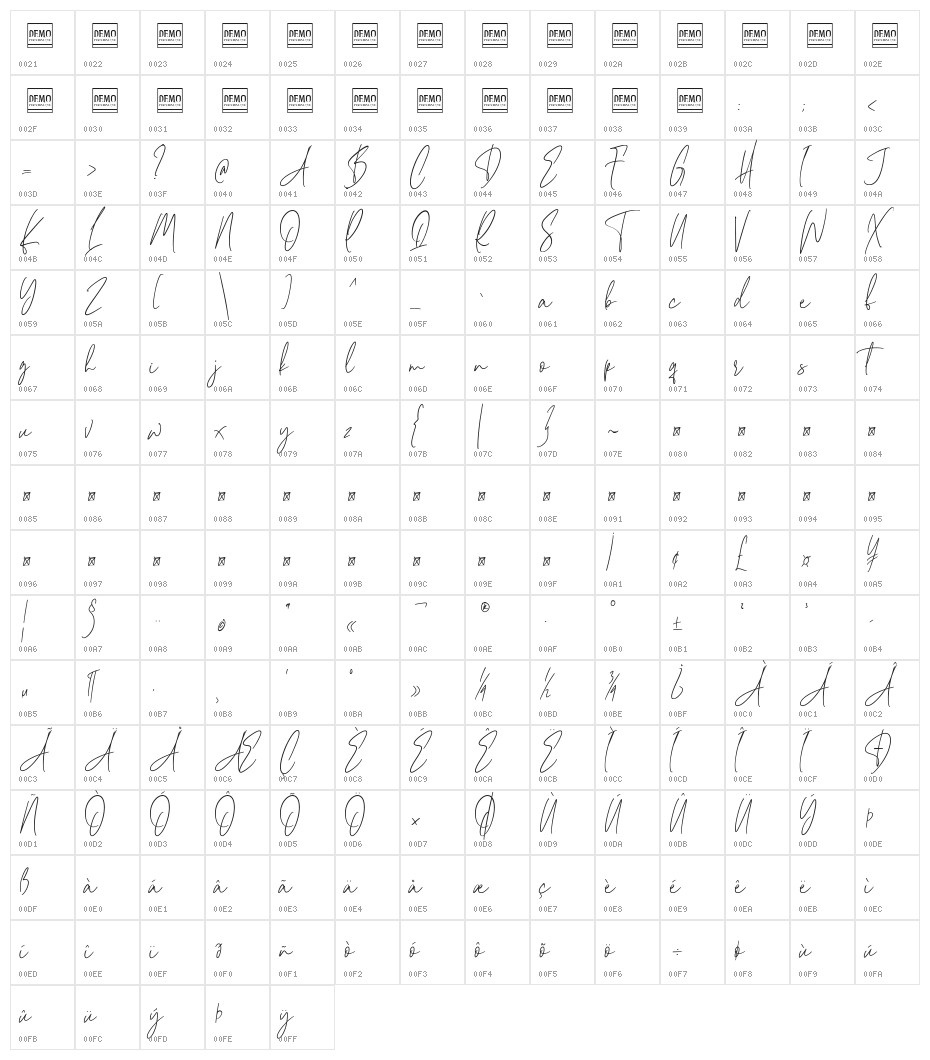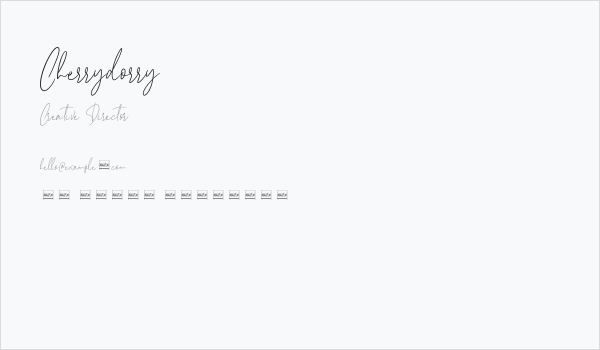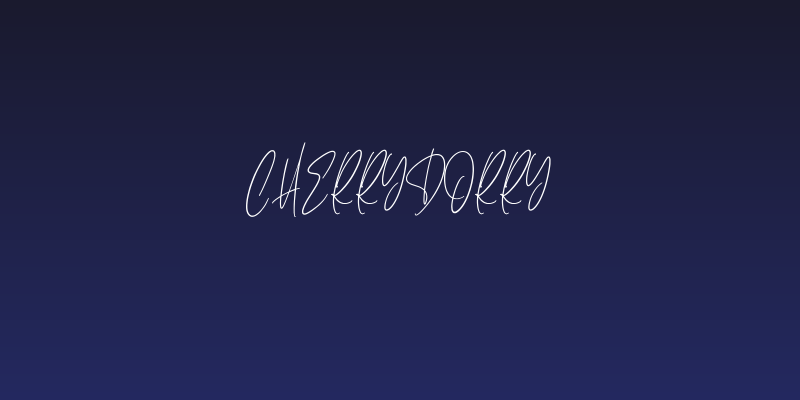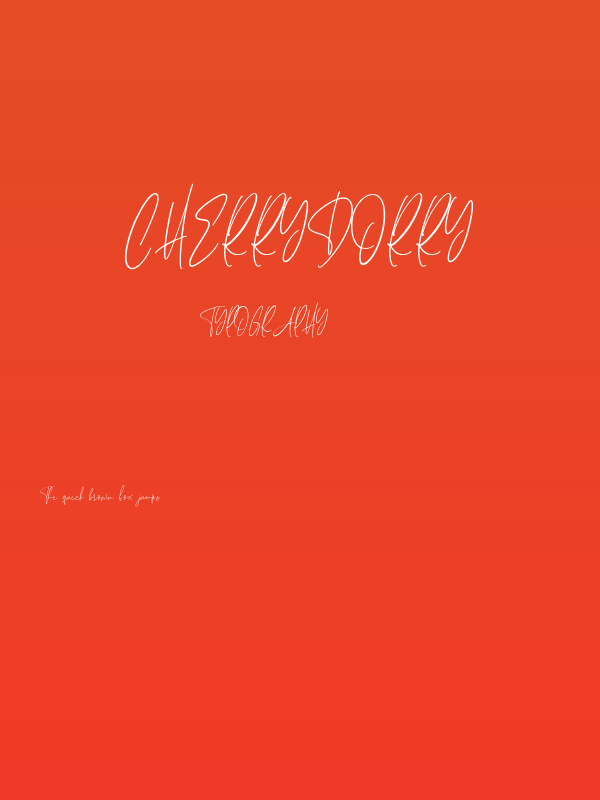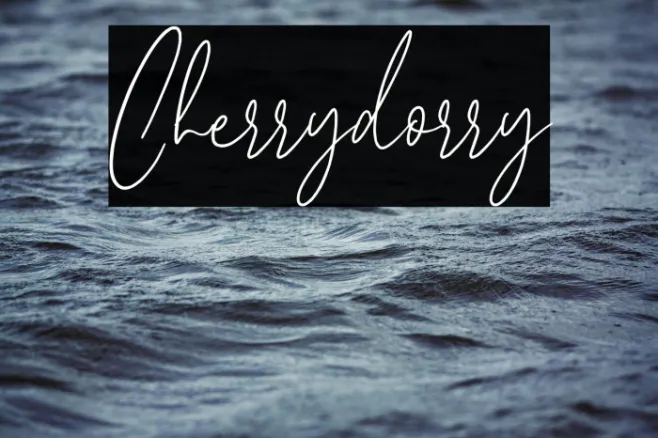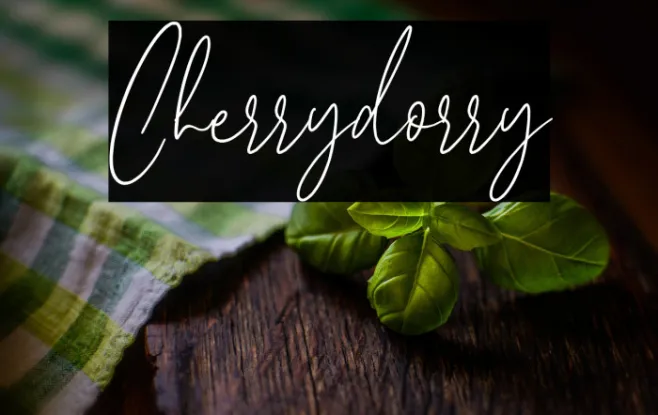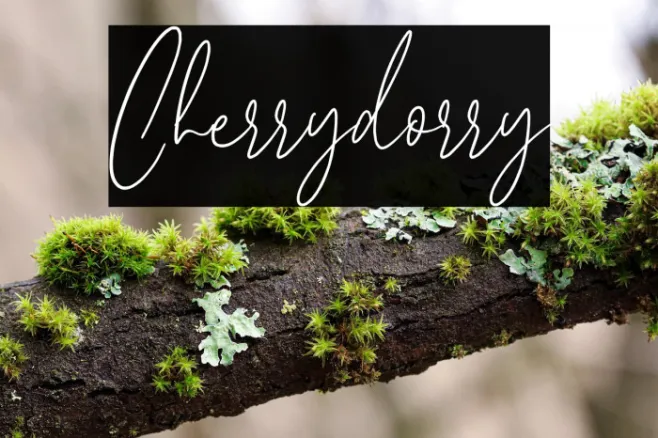
Cherrydorry Font
Cherrydorry Description
This font features a flowing, handwritten style with an elegant and casual appearance. The letters are connected, creating a seamless and fluid look that mimics natural handwriting. The strokes are thin and slightly varied, adding a touch of sophistication and personality. The uppercase letters are tall and slender, while the lowercase letters maintain a consistent height, enhancing readability. This font is perfect for projects that require a personal touch, such as invitations, greeting cards, or branding materials. Its unique style makes it stand out, offering a modern yet timeless appeal.
| Proposed Projects | Ideal for invitations, greeting cards, branding, and personal projects. |